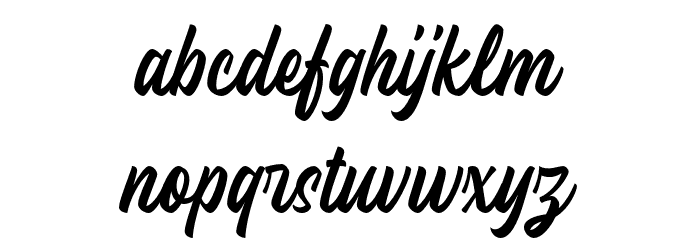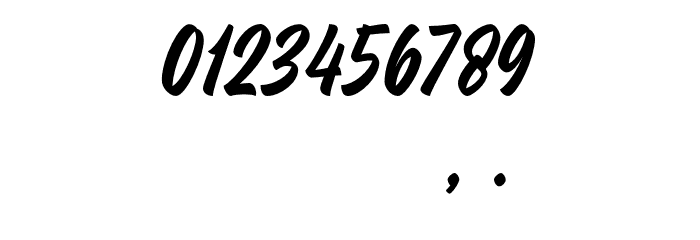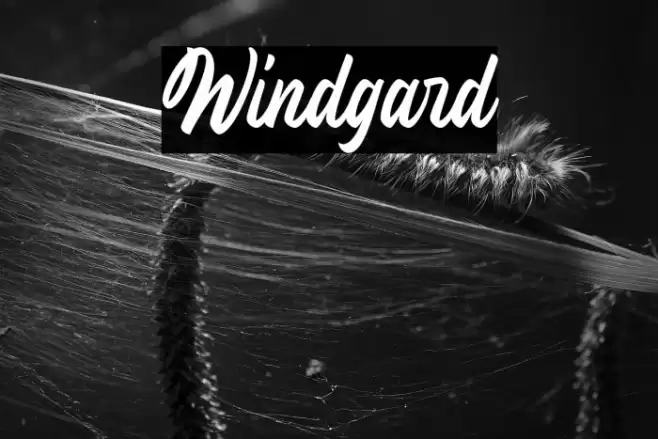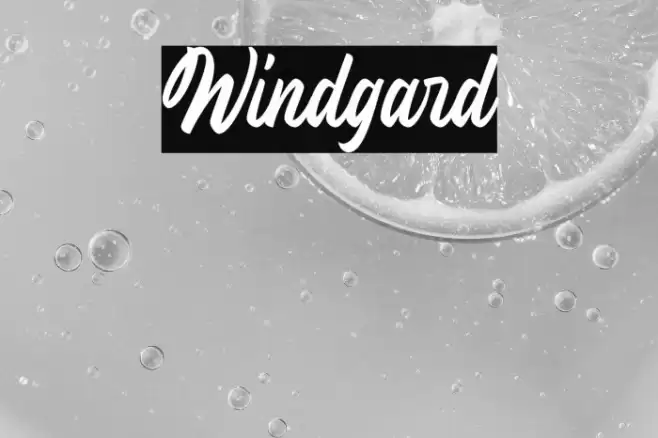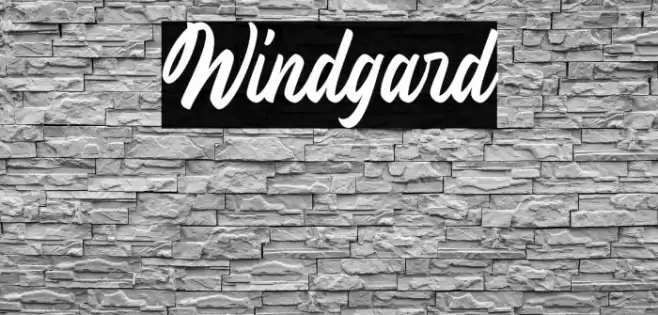
Windgard Font
This font exudes a dynamic and energetic style, characterized by its bold, flowing script that mimics the fluidity of handwriting. The uppercase letters are particularly striking, with dramatic flourishes and a sense of movement that captures attention. The lowercase letters maintain this fluidity, offering a cohesive look that is both elegant and approachable. Numbers and punctuation are designed to complement the overall style, ensuring consistency across all characters. The font's bold weight and medium contrast in stroke thickness make it highly legible while retaining its decorative appeal.
A bold, flowing script font with dynamic, handwritten elegance.
- Proposed Projects: Ideal for branding, invitations, greeting cards, and any project that requires a personal, elegant touch.
- Use Case: Logos, Invitations, Greeting Cards